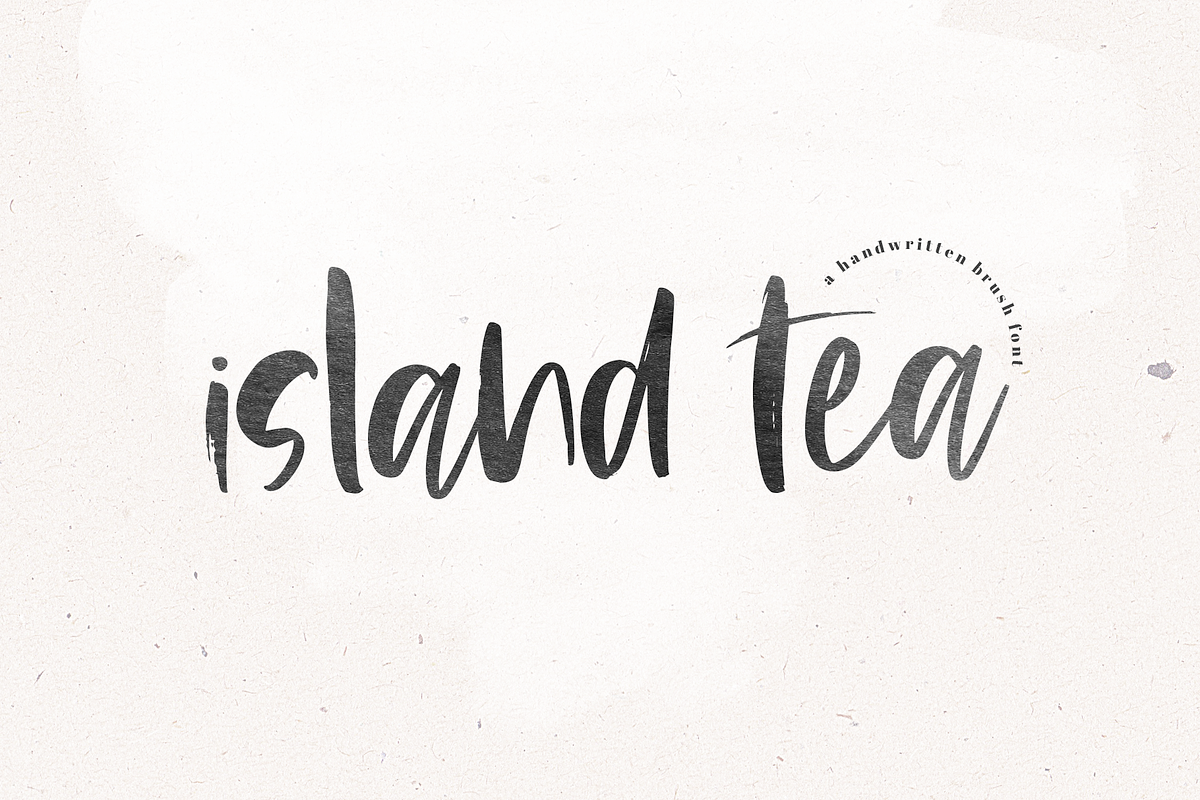
Island Tea - Handwritten Brush Font Free Download is a lively and expressive typeface that brings the charm of handwritten brush strokes to your designs. Its bold, dynamic style makes it perfect for creating vibrant logos, invitations, posters, branding, and social media content. The brush-inspired strokes add a personal, creative touch, making it ideal for projects that require a casual yet artistic feel. Whether you’re designing for a fun event, a trendy brand, or a creative campaign, Island Tea - Handwritten Brush Font Free Download gives you the opportunity to experiment with its unique style in personal projects before purchasing a commercial license. Add energy and authenticity to your designs with this beautifully crafted handwritten brush font.